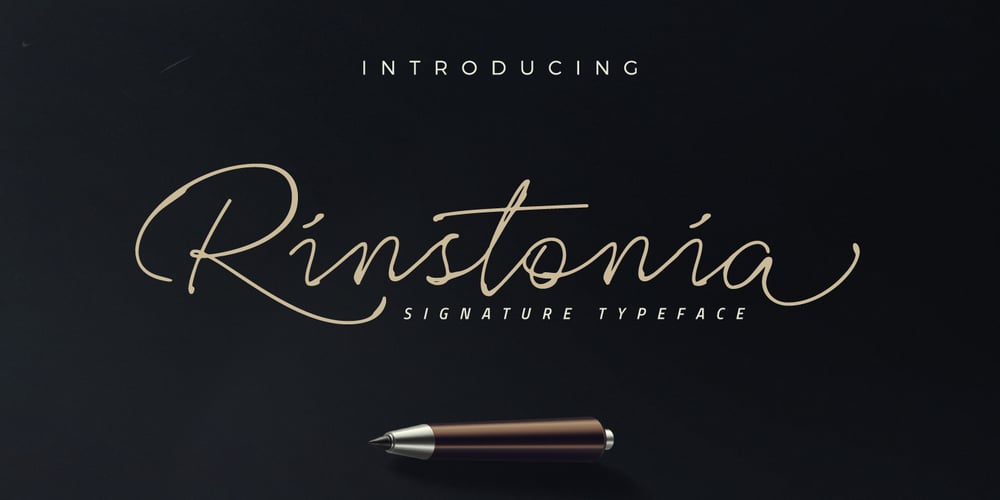
Rinstonia Font Family was designed by Arief Setyo Wahyudi and published by Typia Nesia. Rinstonia contains 1 styles and family package options. Rinstonia is a signature style typeface. Rinstonia is a beautiful script font that is such a pleasure to work with! The perfect flow and easy signature style works perfectly on invitations, blog headers, branding, art quote, book / cover title, and so much more! Rinstonia typeface comes with upper and lowercase Standard Characters, Punctuation, Numerals. And other Glyphs variation of the OpenType features such as Standard Ligature, Stylistic Alternate and 5 Stylistic Set (ss01 – ss05). Typia Nesia Studio Malang – Indonesia